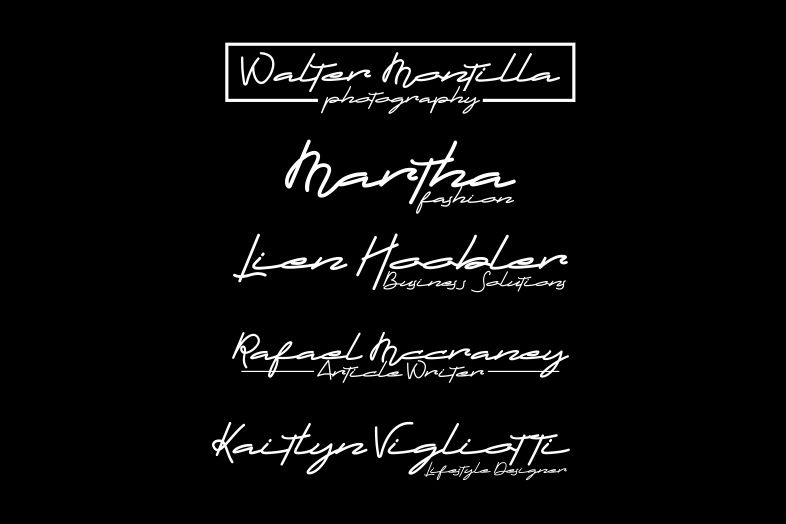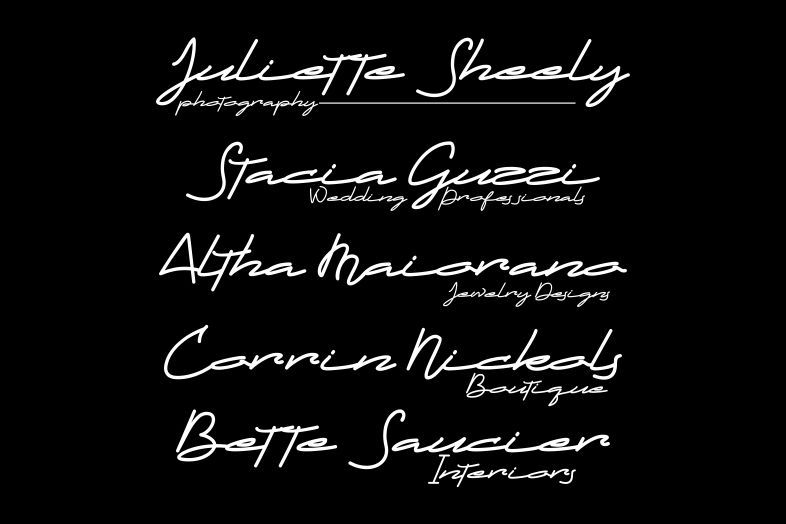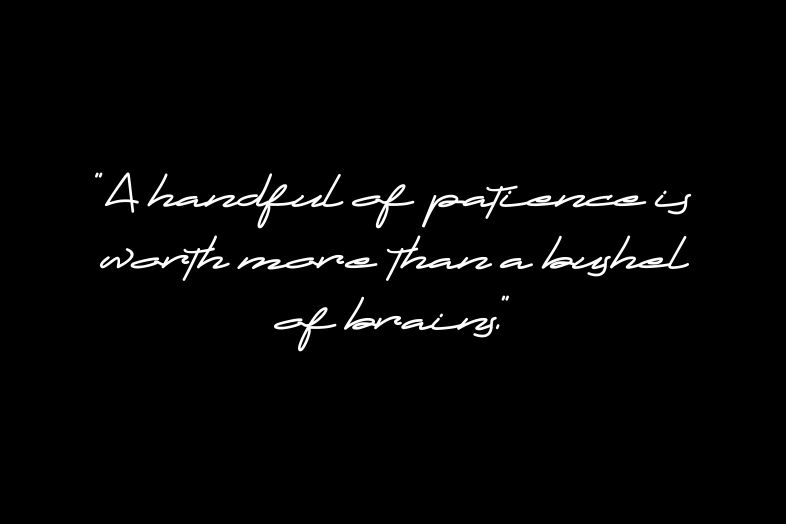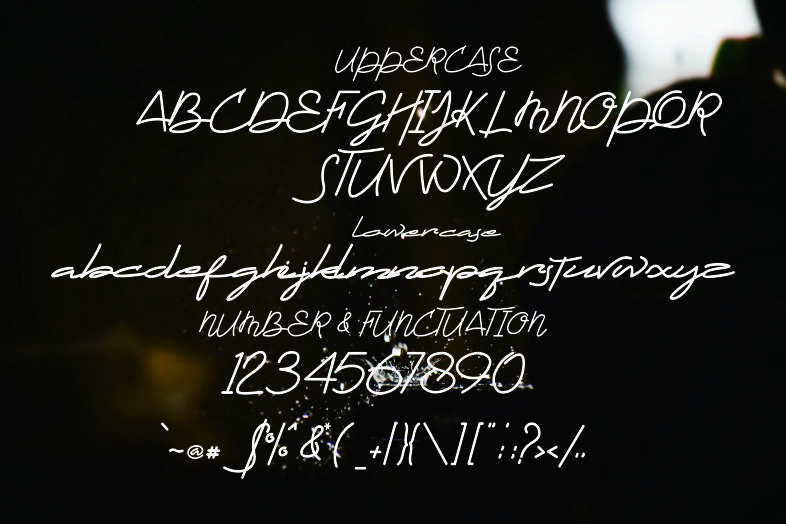
Dwarf Signature Font
About Dwarf Signature Font
Dwarf Signature is a stunning condensed script font, perfect for giving your designs and displays a handwritten appeal. This monoline font is ideal for a wide range of projects and can give them a sleekness and modern feel.